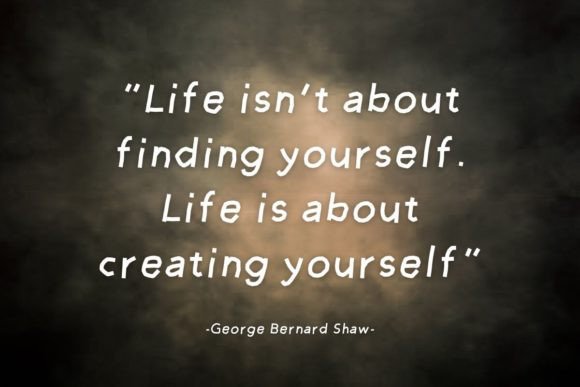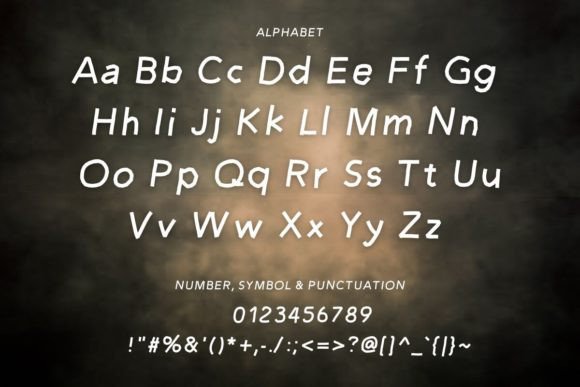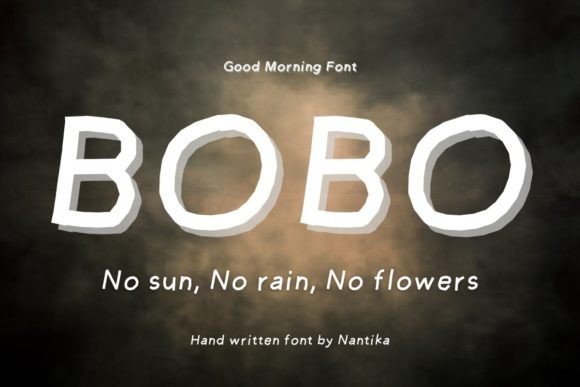
Introduction to Bobo Font
Discover the magical charm of the Bobo font, inspired by Halloween’s enchanting spirit.
This unique font strikes a balance between quirky and extraordinary, making it perfect for any creative project Bobo font combines subtle complexity with dazzling appeal, adding a surprising touch of optimism.